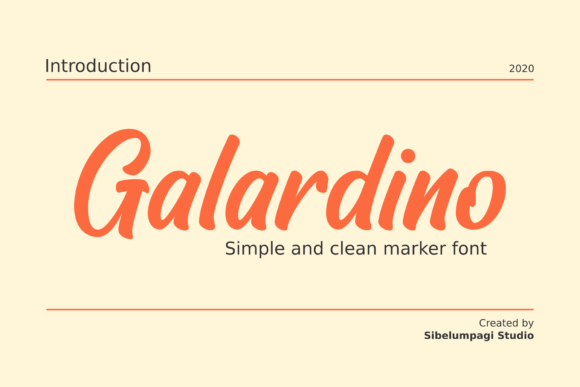
Introducing Galardino Font, a stunning script font that captivates with its effortless charm and beautiful strokes. This easy-to-read font adds a personal touch to your designs, exuding a sense of warmth and authenticity. Say goodbye to boring, generic fonts and embrace the expressiveness of Galardino.
Crafted by the talented Sibelumpagi Studio, Galardino is not just a font; it's an art form. Its smooth curves and playful lines dance across the page, creating an enchanting visual experience. Whether you're designing wedding invitations, creating social media posts, or personalizing your blog, Galardino adds an enchanting touch that leaves a lasting impression.
With its incredible versatility, Galardino adapts seamlessly to a wide range of projects. Its casual charm makes it perfect for handwritten notes, crafting unique logos, or designing eye-catching posters. Unleash your creativity and let Galardino bring your vision to life. Its versatility knows no bounds, making it an indispensable tool for any designer's toolkit.
Galardino's clean and simple design ensures readability, making it perfect for body text. Its letterforms are meticulously crafted to provide clarity and legibility, ensuring your message shines through. Whether you're writing a heartfelt letter, creating a captivating presentation, or designing an informative brochure, Galardino delivers your message with style and grace.
Dive into the world of Galardino and discover a font that's more than just a visual element; it's an expression of your creativity. Its natural charm captivates, while its versatility empowers you to create designs that resonate with your audience.